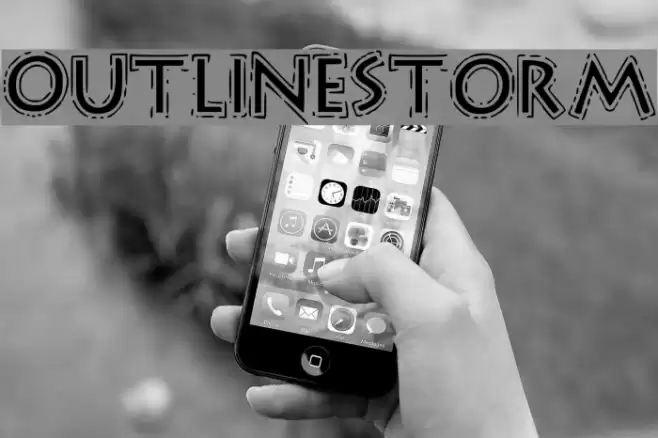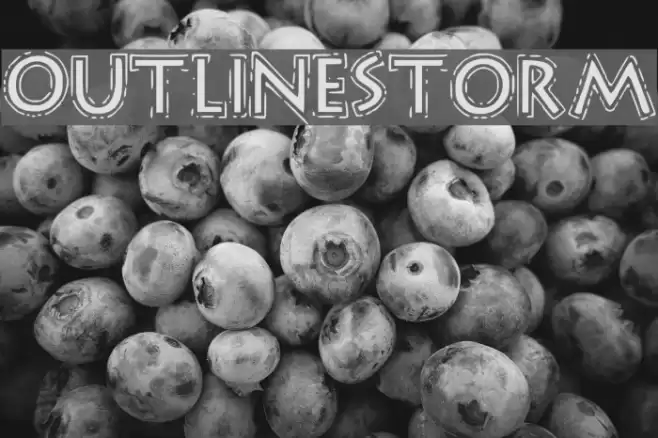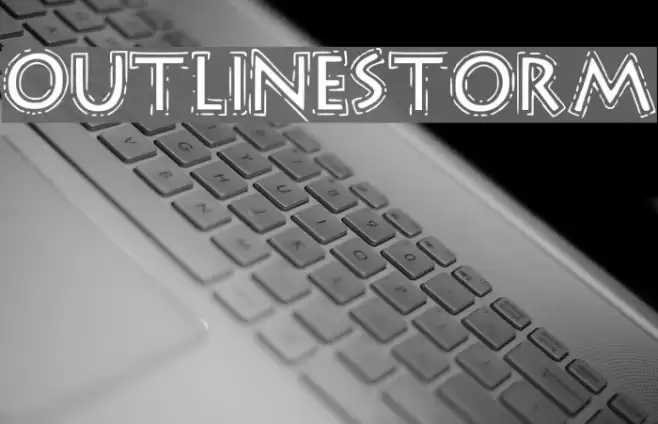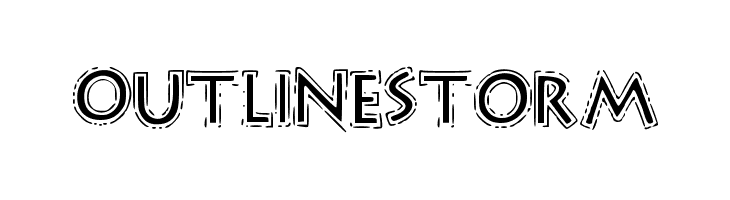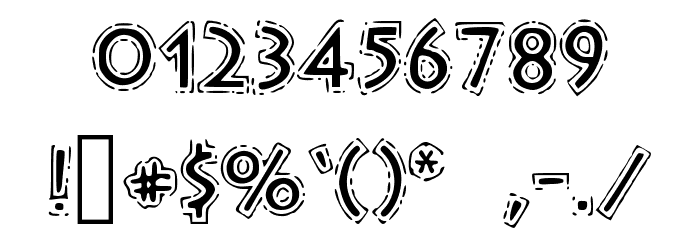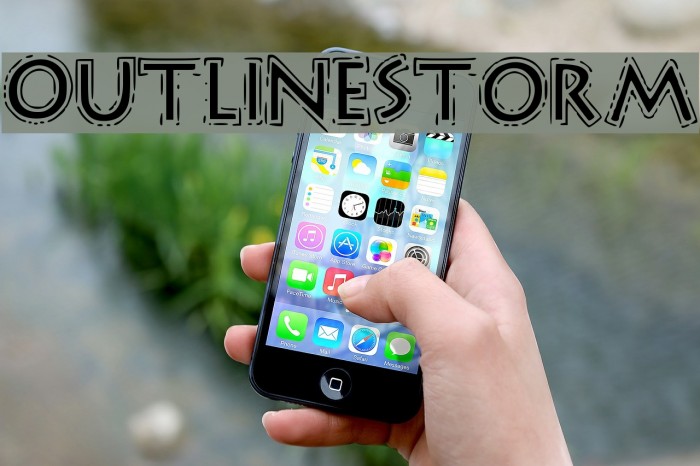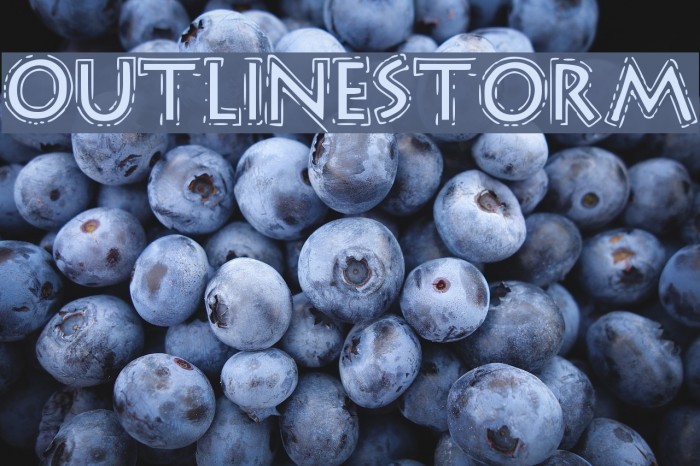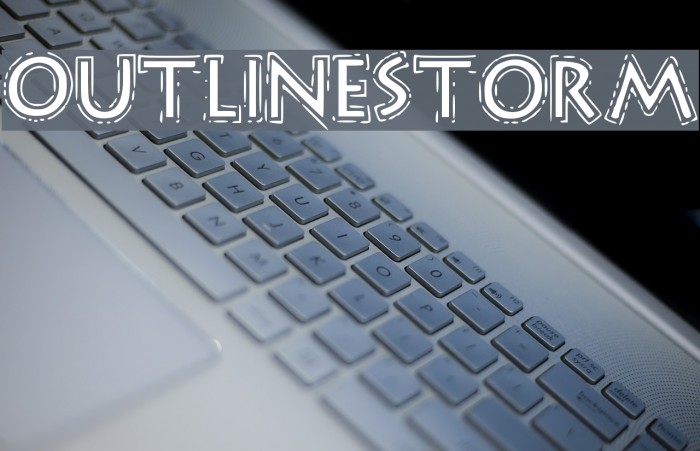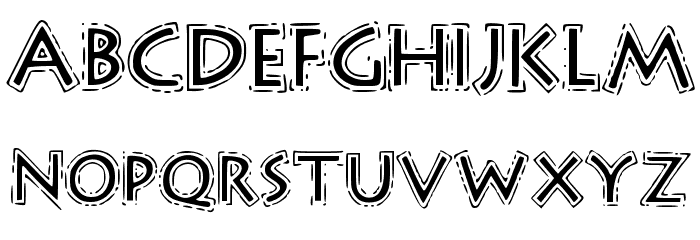
OutlineStorm Font
OutlineStorm Description
This font features a bold, outlined style with a distinct, playful character. The letters are uppercase and lowercase, with a consistent outline that adds a dynamic and energetic feel. The strokes are thick, and the outlines create a layered effect, giving the font a three-dimensional appearance. The characters are evenly spaced, ensuring readability while maintaining a unique aesthetic. The numbers and special characters follow the same outlined design, making them cohesive with the alphabet. This font is ideal for projects that require a bold statement or a creative touch.
A bold, outlined font with a playful and dynamic style from Uncategorized fonts.